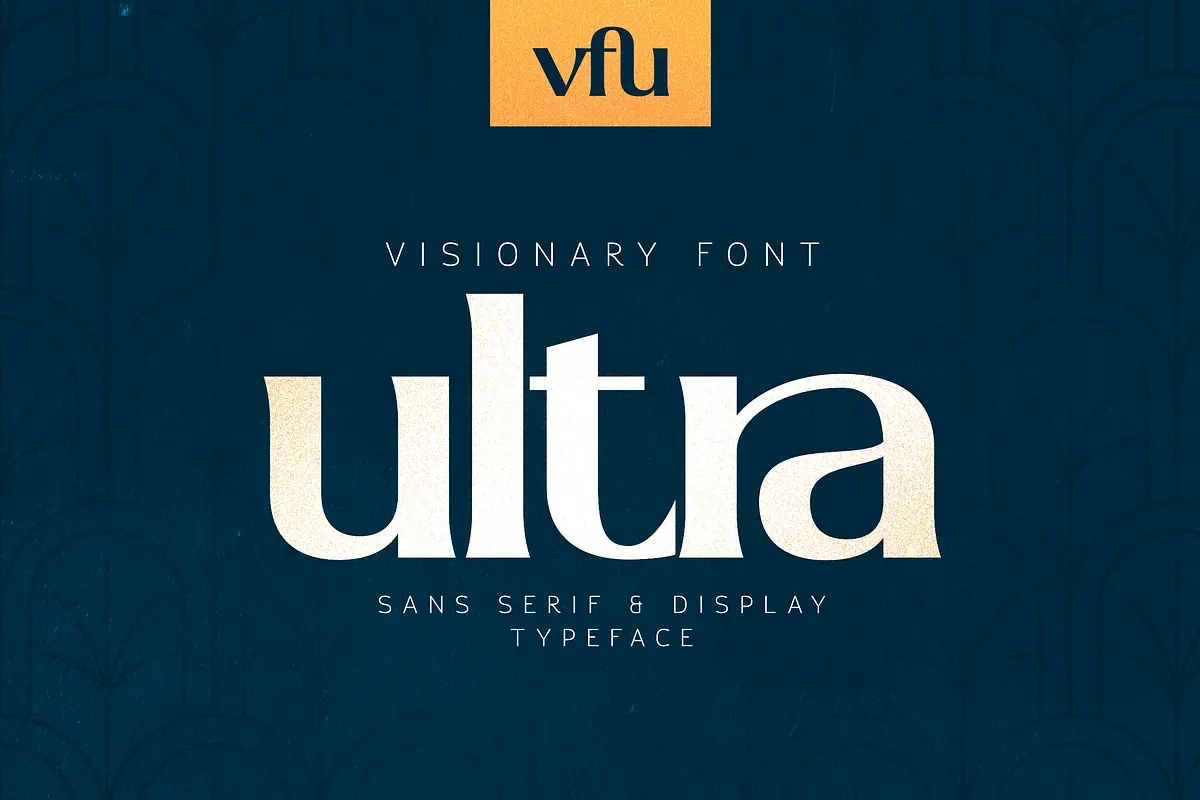
VFU - Visionary Font Ultra Typeface Free Download is a bold, futuristic typeface designed for high-impact designs that demand attention. With its sleek, geometric shapes and strong presence, VFU is perfect for tech-related projects, sci-fi designs, movie posters, branding, and digital interfaces.
The VFU typeface combines modern elegance with sharp, defined edges, making it ideal for creative projects that require a sophisticated, cutting-edge look. Whether you're working on a tech brand, game design, or a futuristic product launch, this font gives your designs a strong, professional, and visionary feel.
The font includes uppercase letters, numerals, punctuation, and multilingual support, offering versatility for a wide range of applications. It works well in both digital and print formats, particularly in bold headers, logos, and promotional materials.